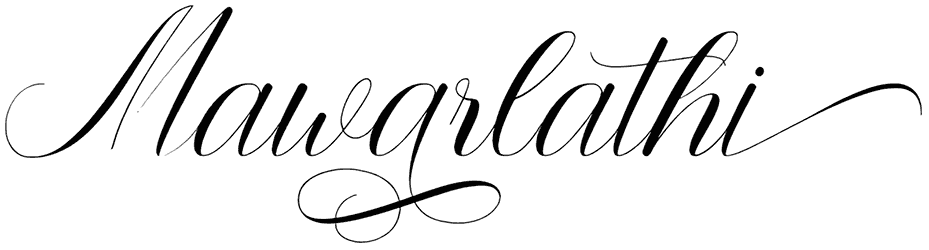
Mawarlathi Font
Allow your creative soul to use Mawarlathi’s ultra-slim lines and inherent elegance to revive a nostalgic and personal feel in your ideas.
This calligraphy font will be enough to turn any ordinary work into a masterpiece and can satisfy the taste of any viewer without the need for extra effort to meet the audience. So if you want to send a unique invitation for your wedding party or enjoy a lasting tattoo, decorate your content with this luxury script font.